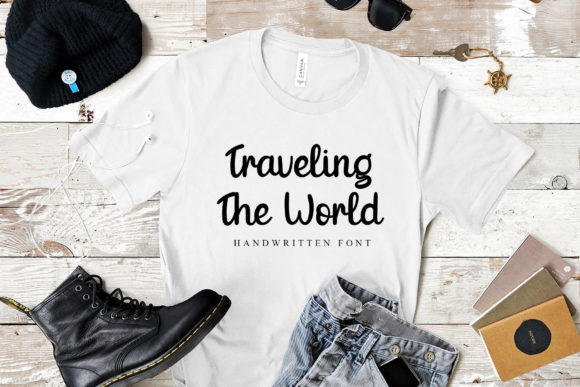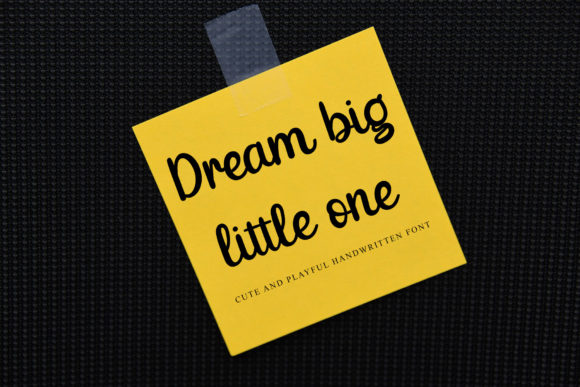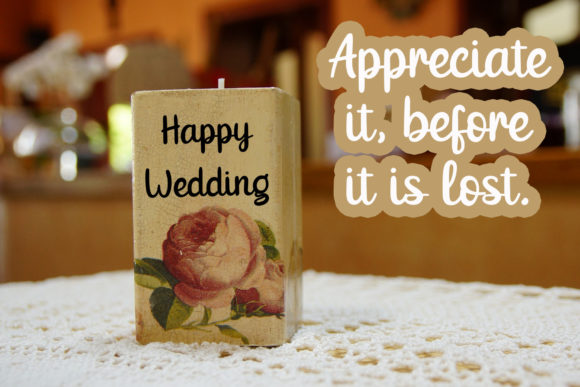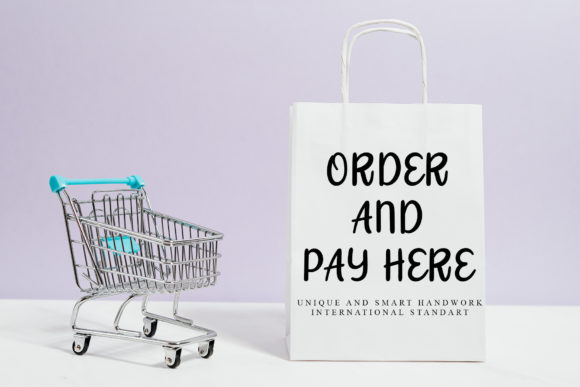
Background Decoration Font
About Background Decoration Font
Background Decoration is a delicate, elegant and flowing handwritten font. It has beautiful and well balanced characters and as a result, it matches a wide pool of designs. Add it confidently to your favorite creations and let yourself be amazed by the outcome generated.